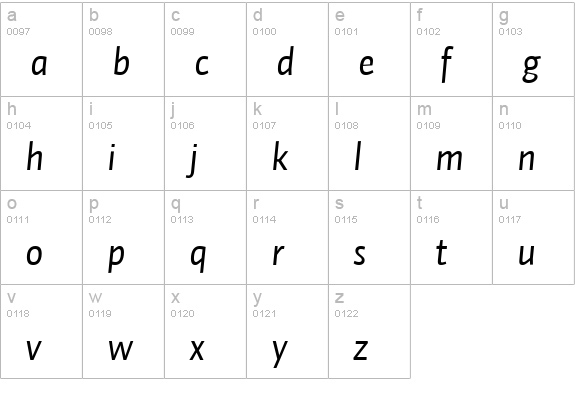
Auto 1 Italic LF is a distinctive, italic variant in the Auto typeface family \xE2\x80\x94 well suited to design and typography projects.
Auto 1 Italic LF is a sleek and modern font that exudes sophistication and elegance. With its clean lines and stylish curves, this font is perfect for adding a touch of class to any design project. The italicized style adds a sense of dynamism and movement, making it ideal for conveying a sense of energy and excitement. What's even better is that Auto 1 Italic LF is available for free download at FontsMarket.com. This means you can easily access this stunning font without any cost, making it a fantastic choice for designers looking to elevate their projects without breaking the bank. Get your hands on Auto 1 Italic LF today and add a touch of flair to your designs!